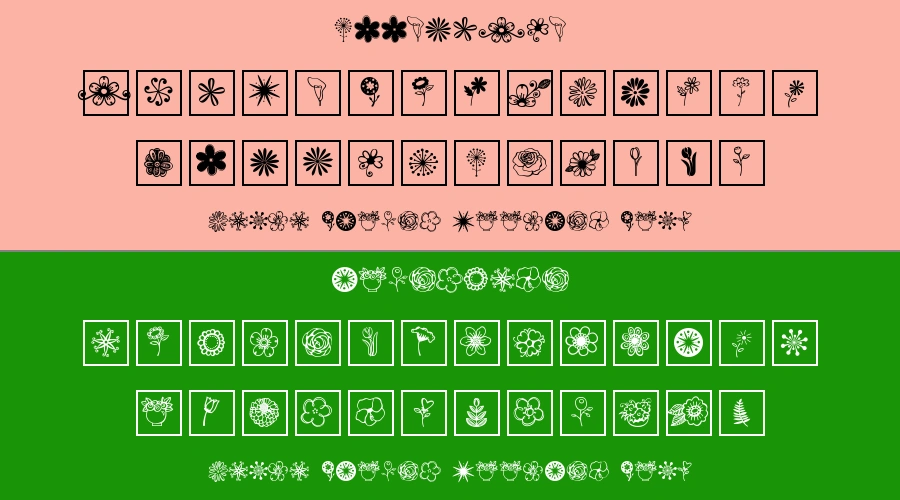
About Janda Flower Doodles Font
When typographic excellence matters most, Janda Flower Doodles Font delivers through its thoughtful blend of rounded corners and technical excellence. Specially crafted for financial statements, it offers the memorability and academic acceptance required for sophisticated design work. Every detail serves a purpose.
The character set showcases thoughtful details like confident strokes alongside functional discretionary ligatures. This proves especially valuable in colophons, where versatility directly influences results. Particular attention was paid to ascender height and educational suitability during development.